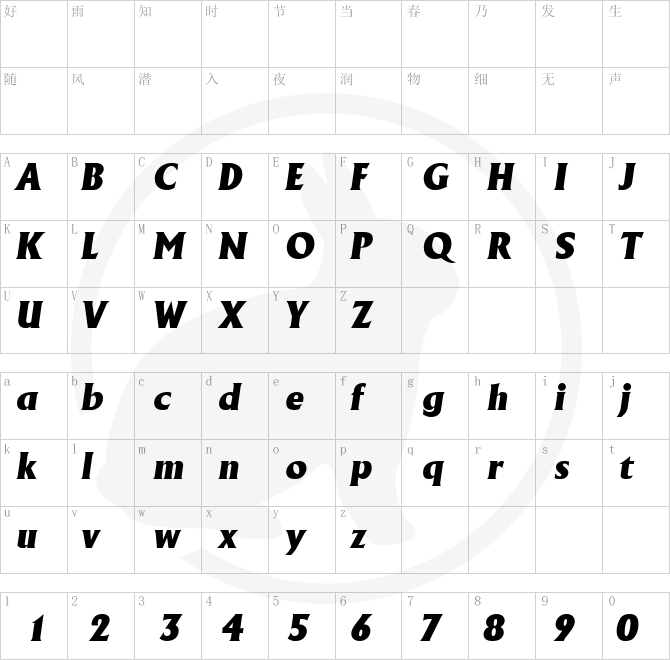
- Font Name:JacobBecker-Heavy
- Full Name:JacobBecker-Heavy Italic
JacobBecker-Heavy-Italic.ttf is a very beautiful artistic font, JacobBecker-Heavy-Italic.ttf is widely used in the design and printing of various books and pictures,JacobBecker-Heavy-Italic.ttf has a strong visual impact,JacobBecker-Heavy-Italic.ttf is a commonly used font in newspapers, magazines and books, and is used in posters, e-commerce Poster design, store design, logo design, font design and other fields.JacobBecker-Heavy-Italic.